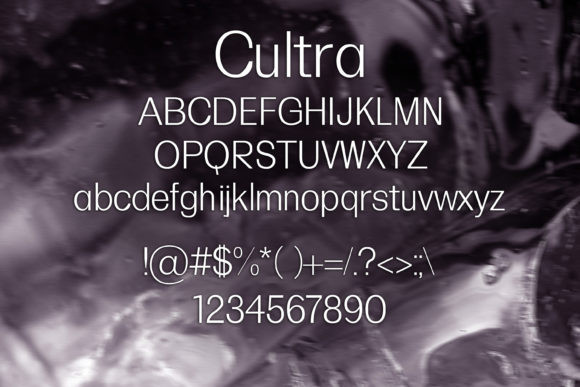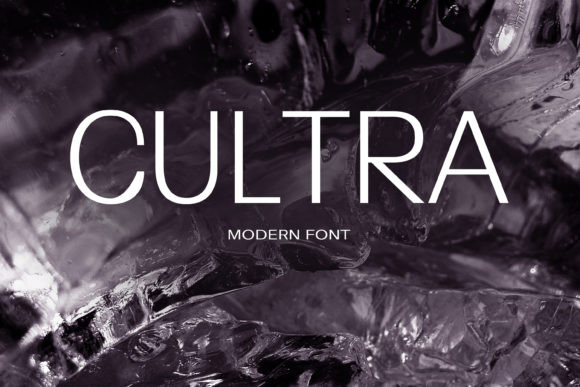
Cultra Font
A stunning sans serif font
Inspired by traditional sign painting, with a modern twist. Clean and minimal, making it perfect for modern designs.